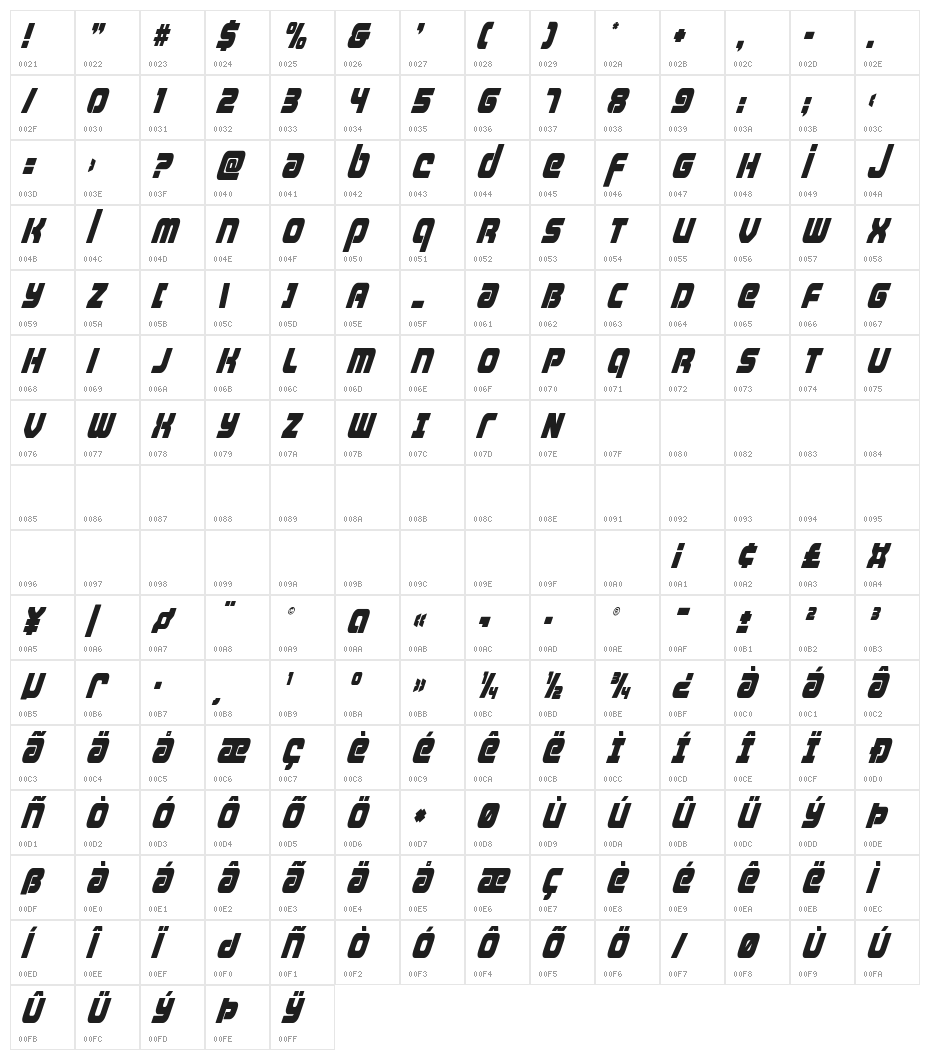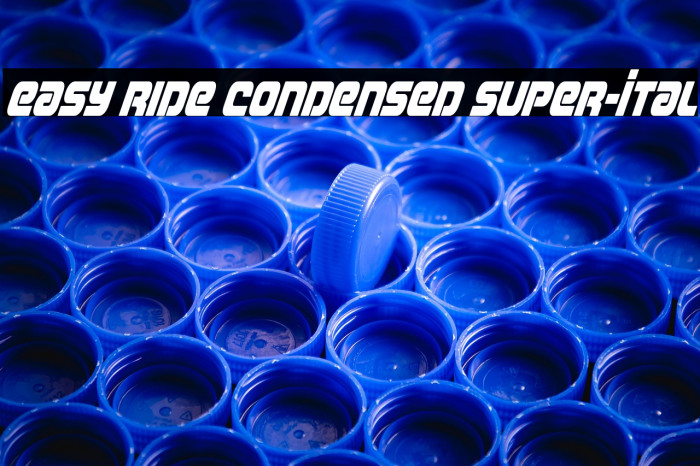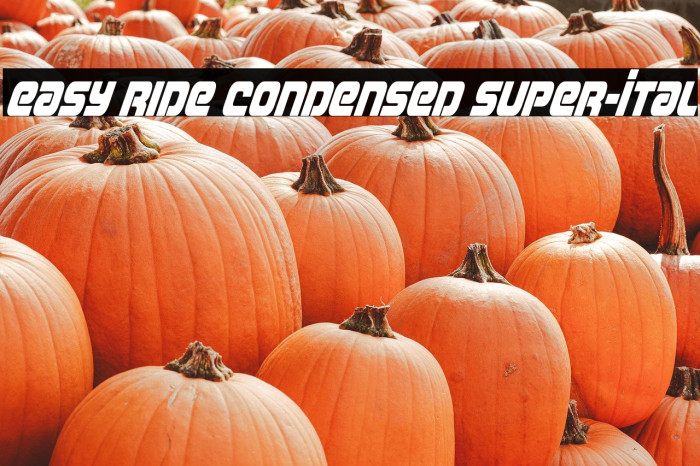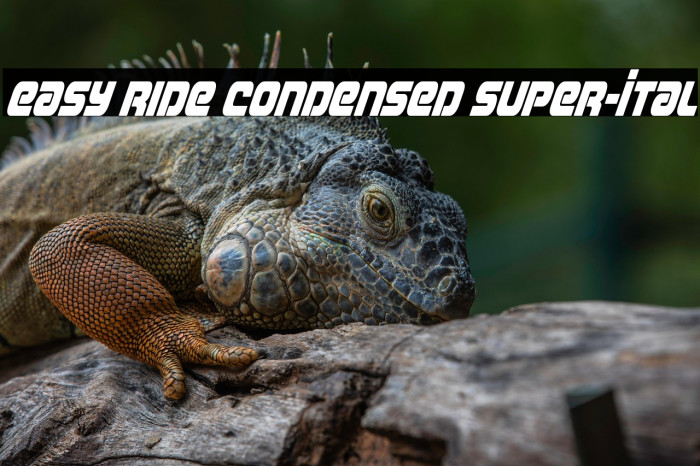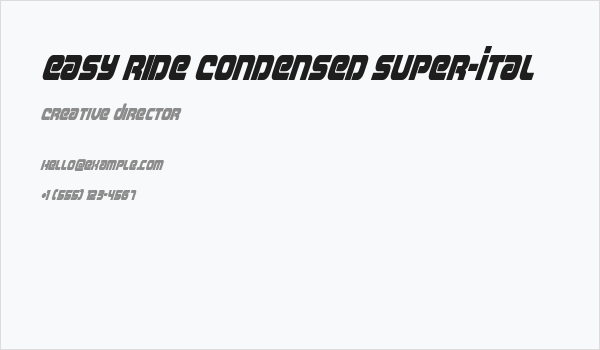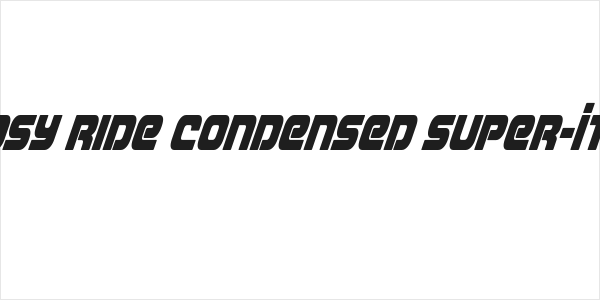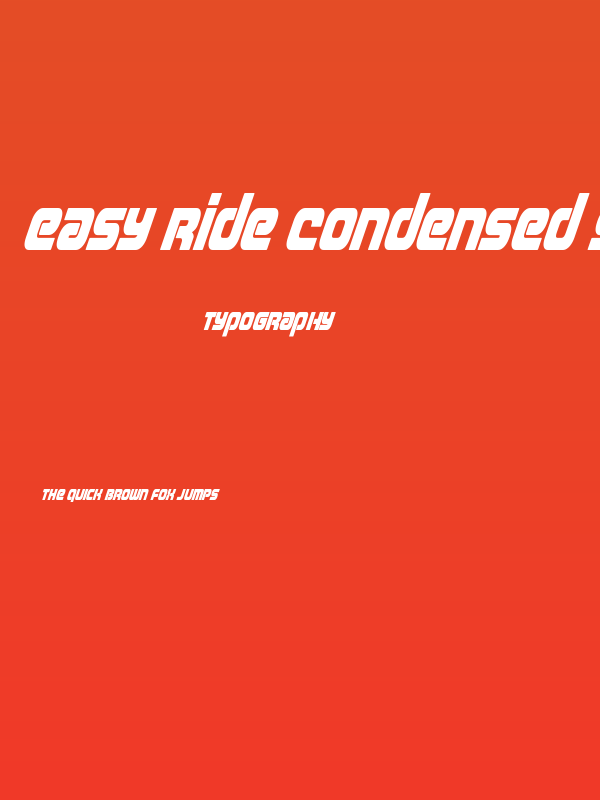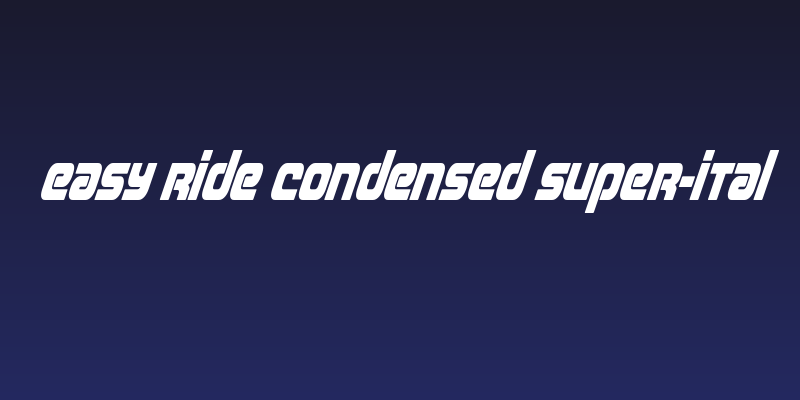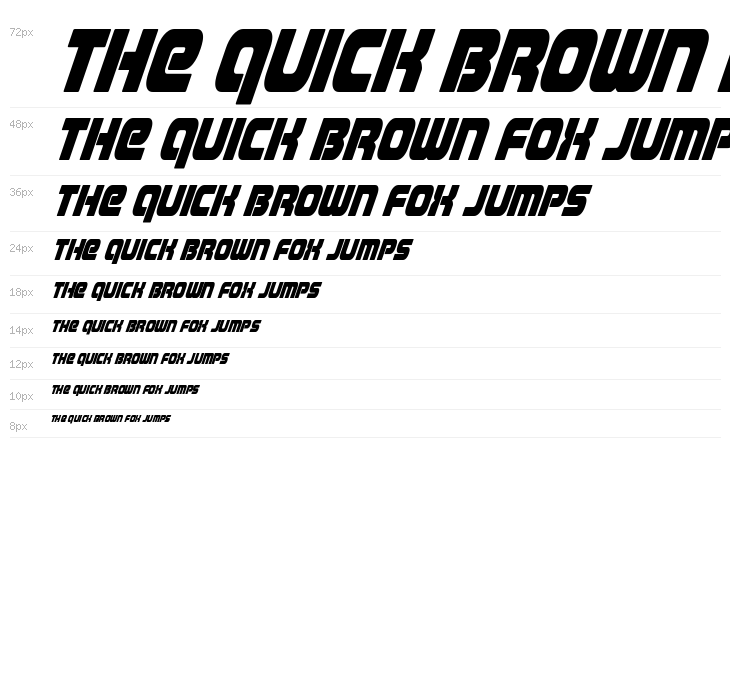
Easy Ride Condensed Super-Ital Font
Easy Ride Condensed Super-Ital Description
This font features a bold, dynamic style with a strong italic slant, giving it a sense of motion and energy. The characters are condensed, creating a compact and impactful appearance. The bold weight and geometric shapes contribute to its modern and futuristic feel. The uppercase and lowercase letters maintain a consistent style, with sharp angles and clean lines. Numbers and special characters are equally bold and maintain the same condensed, italicized form, ensuring uniformity across all text. This font is ideal for projects that require a bold statement and a sense of speed or movement.
| Use Case | Logos, Headlines, Advertising |
| Proposed Projects | Ideal for branding, sports team logos, automotive designs, and dynamic advertising campaigns. |